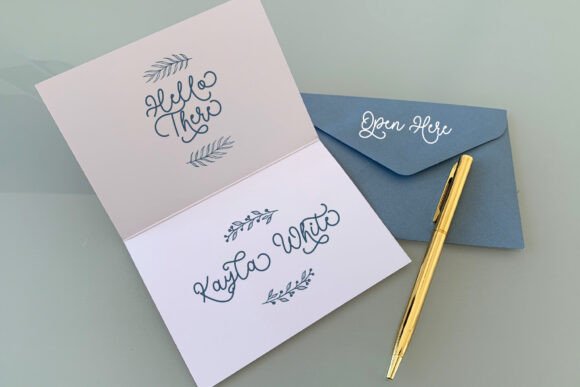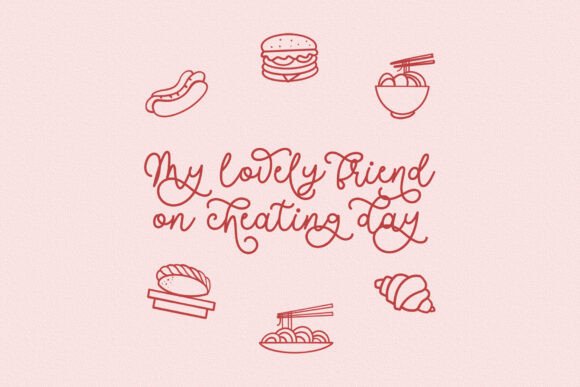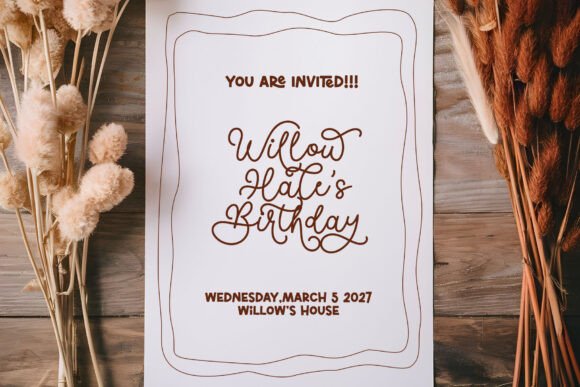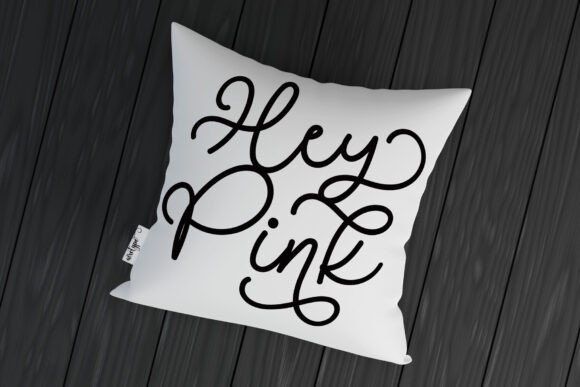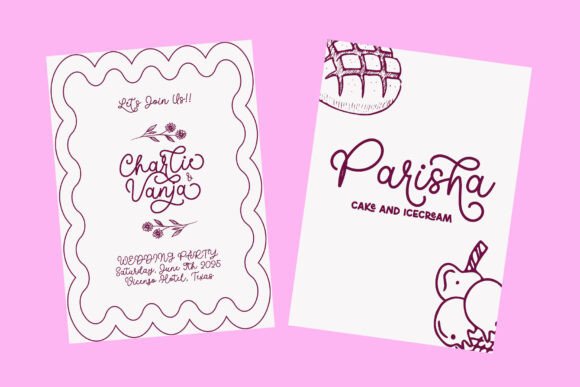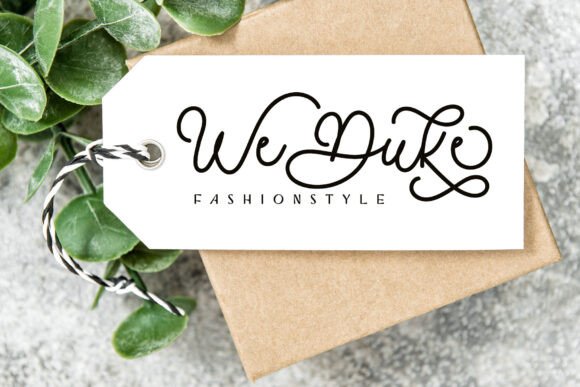
Introduction to Picky Mother Font
Do you ever find yourself stuck in a creative rut, searching for the perfect font to bring your design project to life? I know I do. That’s when I stumbled upon the Picky Mother Font, a delightful single-line handwritten font that’s as charming as it is versatile.
With its extra glyphs and high-quality design, the Picky Mother Font is a valuable resource for designers looking to add a touch of whimsy to their work. Whether you’re creating greeting cards, wedding invitations, or t-shirt designs, this font is sure to bring a smile to your face and a sparkle to your project.
Picky Mother Font
- Unique, hand-drawn design elements add a personal touch to any project
Honest Review: Picky Mother Font
As a designer, I’m always on the lookout for high-quality design resources to elevate my creative projects. Recently, I had the opportunity to try out the Picky Mother Font, and I’m excited to share my honest review.
- Unique, cursive style adds a touch of whimsy
However, I did encounter a few limitations: ⚠️ The font may not be suitable for projects that require a more formal or serious tone. Additionally, the font’s character set is relatively limited, which may make it less versatile for certain design applications.
Overall, I think the Picky Mother Font is a great addition to any designer’s toolkit. While it may have some limitations, its unique style and high-quality design make it a valuable resource for creative projects.
Tips for Getting the Most Out of Picky Mother Font
To get the most out of the Picky Mother Font, experiment with different font sizes and styles. This font is perfect for creating visually appealing headings and titles. You can also use it to add a touch of personality to your designs.
The Picky Mother Font is ideal for a variety of creative projects, including branding, advertising, and editorial design. It’s also perfect for creating social media graphics, posters, and flyers.
Alternatives to Picky Mother Font
The Alex Brush Font is a beautiful, handwritten script font ideal for creative projects that require elegance and sophistication. It features a high-quality design with a transparent background, making it perfect for overlaying on images or backgrounds. This font is great for designers who want a more refined look for their projects.
Comparison to Picky Mother Font: Alex Brush Font is more refined and elegant, making it suitable for high-end design projects. It lacks the playfulness of Picky Mother Font but offers a more sophisticated look.